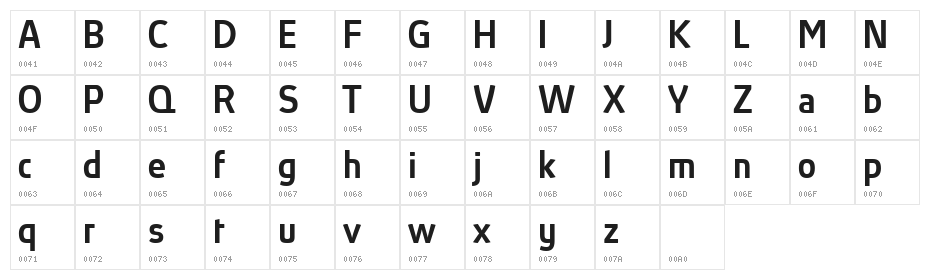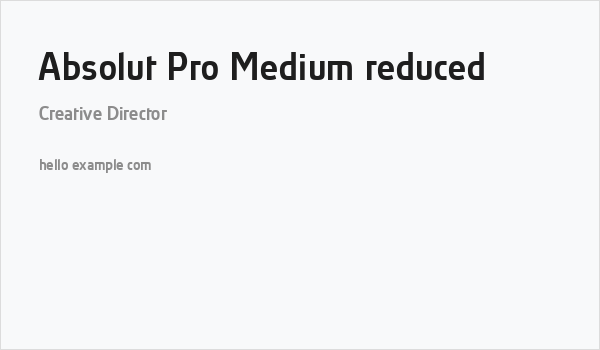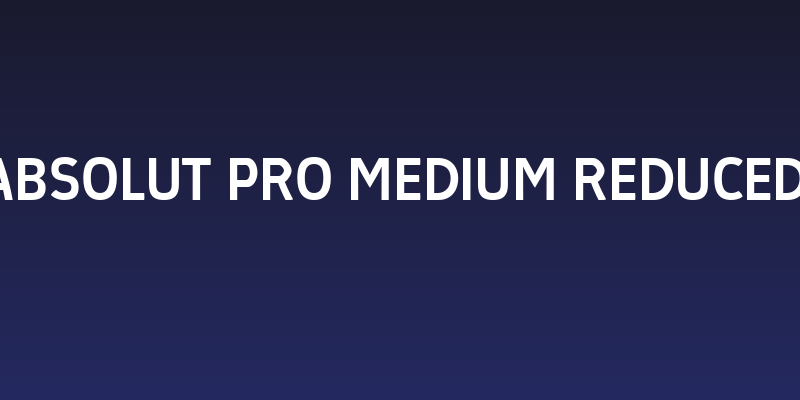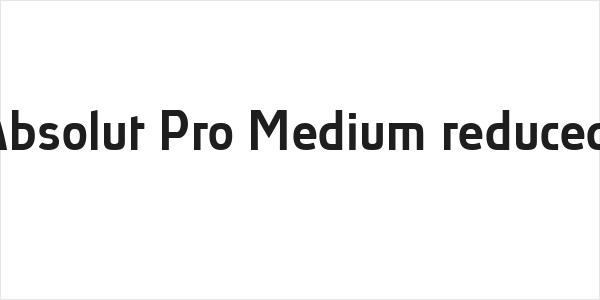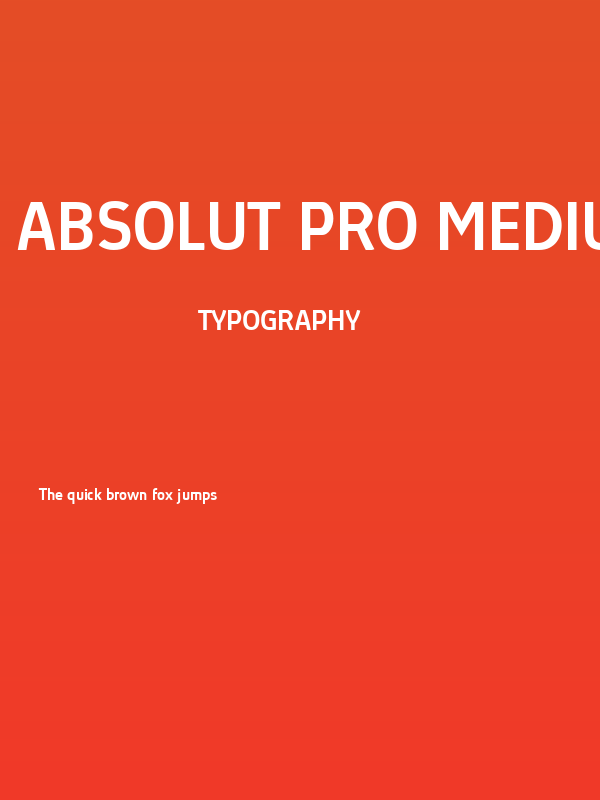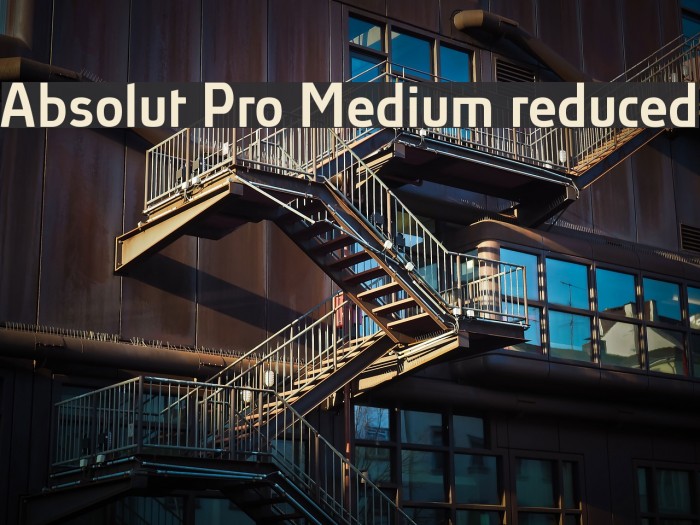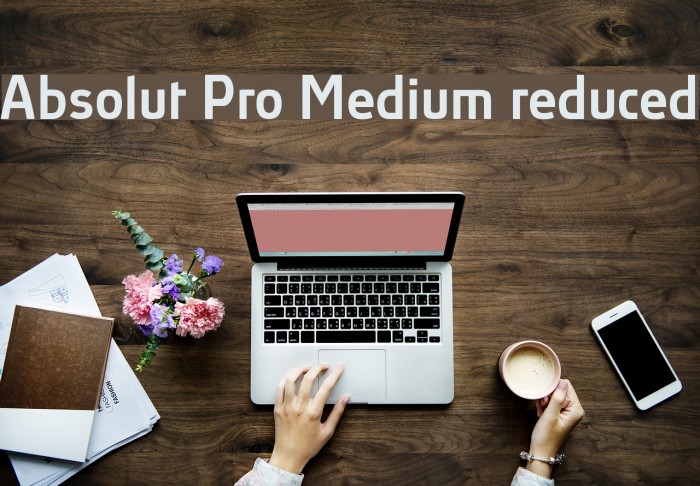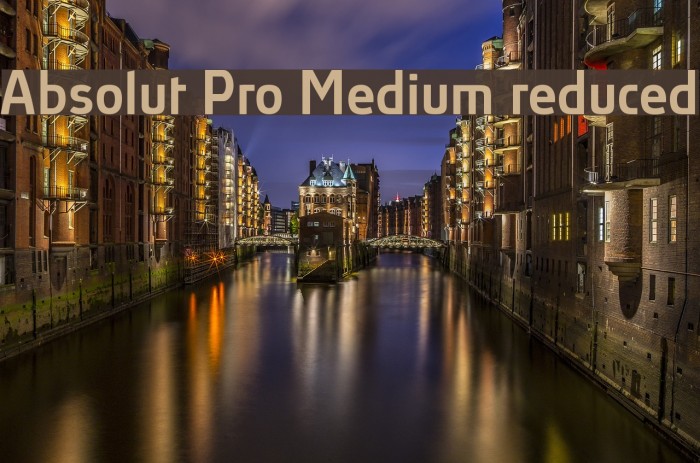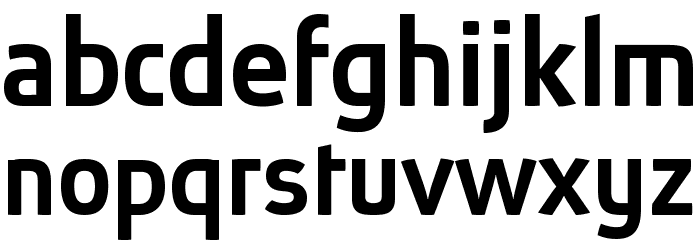
Absolut Pro Medium reduced Font
Absolut Pro Medium reduced Description
This font features a clean and modern sans-serif design with a medium weight that provides a balanced appearance. The characters are well-proportioned, with a slightly condensed width that enhances readability while maintaining a sleek and professional look. The uppercase letters are bold and assertive, while the lowercase letters offer a softer, more approachable feel. The font's design is versatile, making it suitable for a variety of applications, from digital interfaces to print media. Its consistent stroke width and minimal contrast contribute to its contemporary aesthetic, ensuring clarity and legibility across different sizes and contexts.
| Width | Condensed |
| Use Case | Headlines, Body text, Logos |
| Proposed Projects | Ideal for branding, web design, advertising, and editorial layouts. |